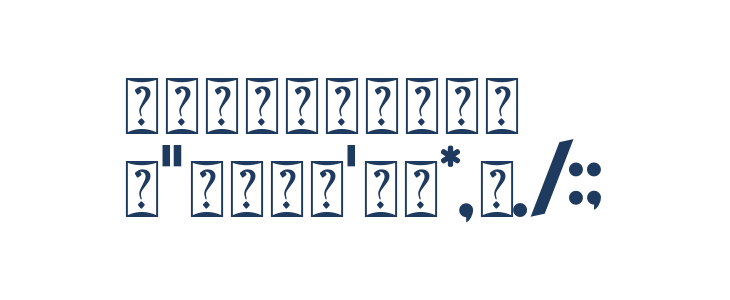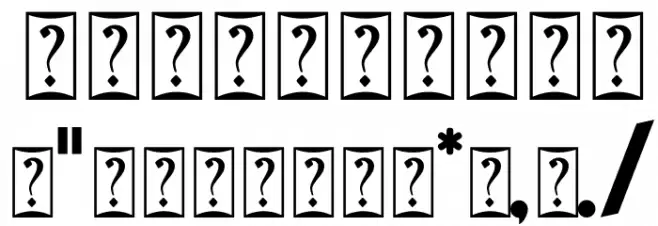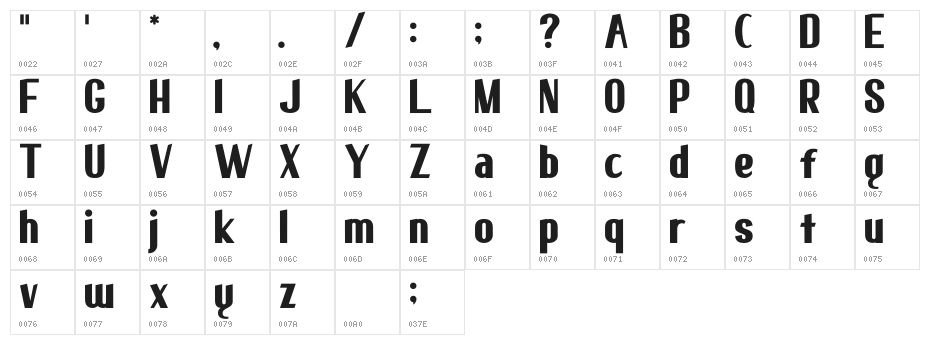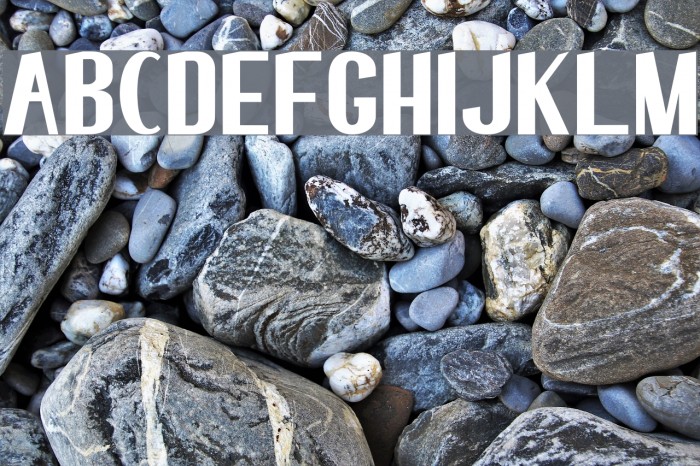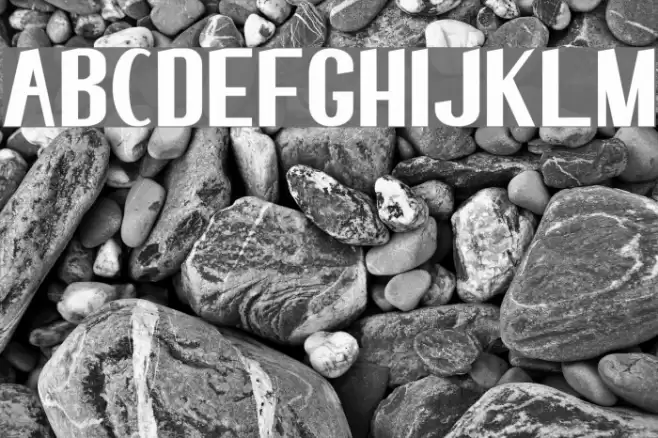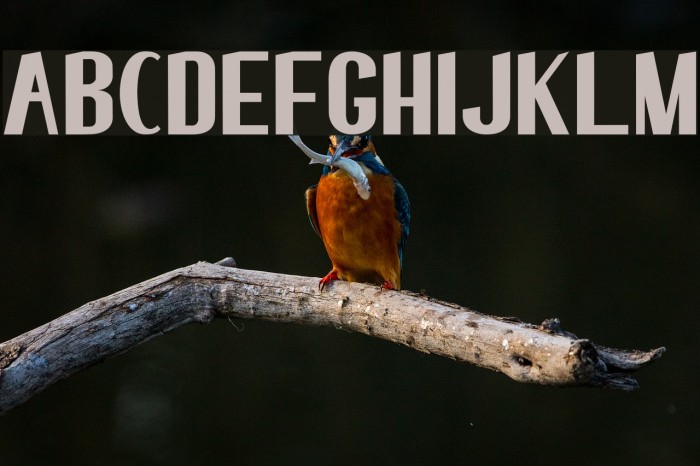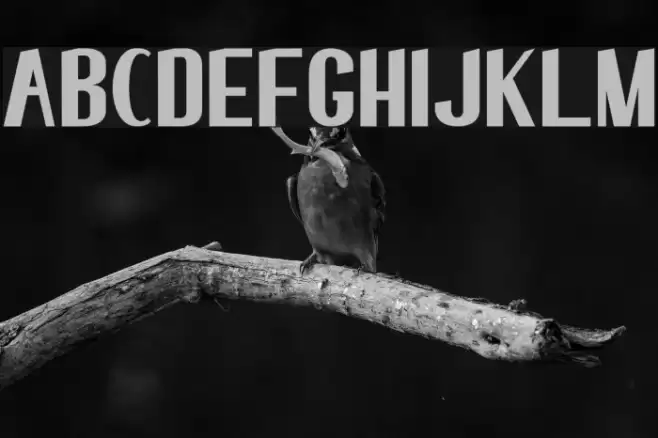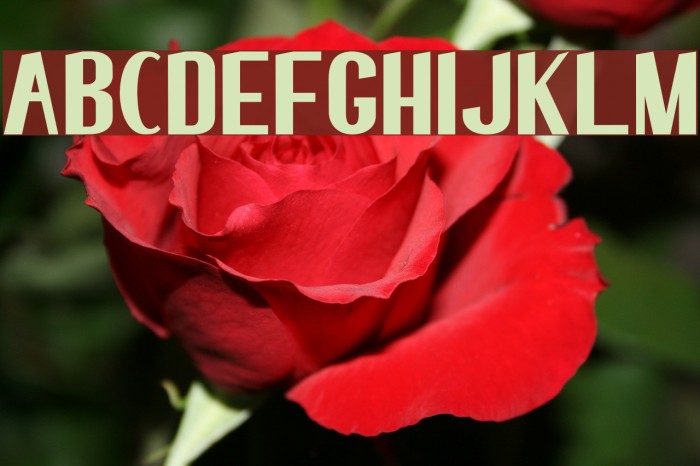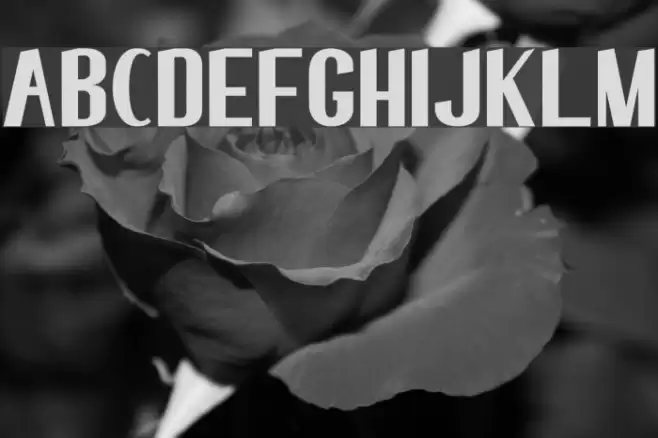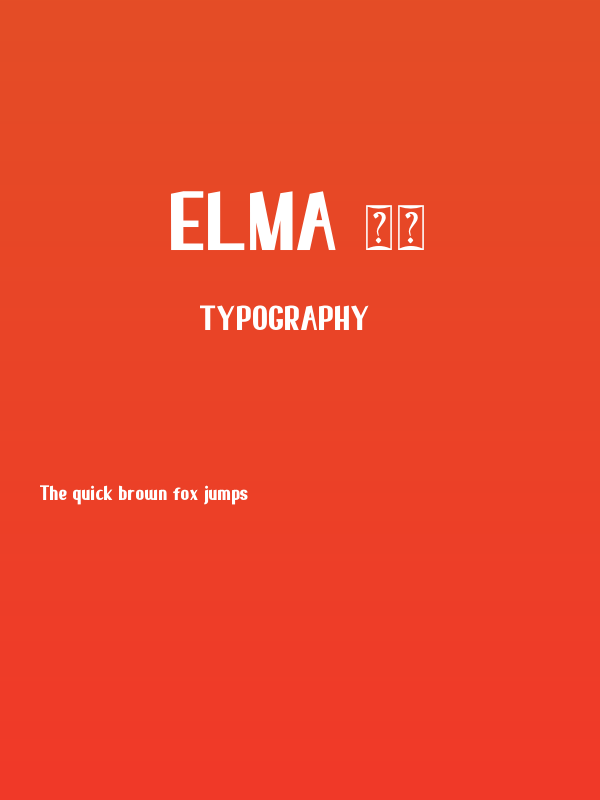
elma 01 Font
elma 01 Description
This font features bold, uppercase and lowercase letters with a strong presence. The characters are slightly condensed, giving them a compact appearance. The strokes are consistent in weight, providing a uniform look across all letters. The design is modern and clean, making it suitable for a variety of uses. The special characters are stylized to match the boldness of the letters, ensuring a cohesive look throughout. This font is ideal for projects that require a strong and impactful typeface.
| Proposed Projects | Ideal for headlines, posters, branding, and advertising materials. |